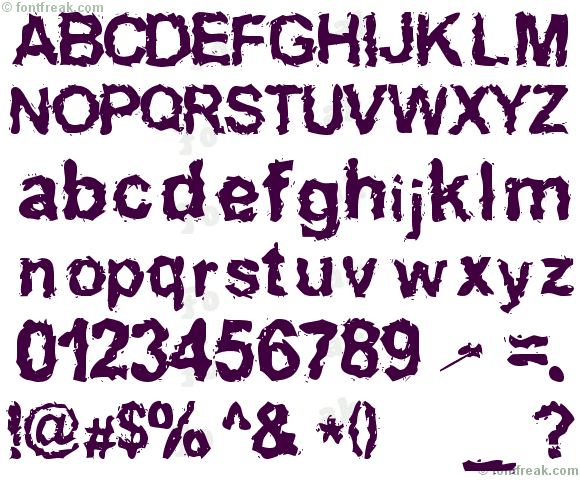
About Inked
The Inked font by Gemfonts is a distinctive display typeface that captures attention with its unique, artistic flair. Designed with a handwritten style, this font showcases a raw, almost rebellious character, making it ideal for projects seeking an unconventional touch. The strokes exhibit a varied weight, which adds depth and visual interest, while the irregular edges evoke the feel of ink on paper. This font is characterized by its playful spacing and quirky decorative elements, giving it a spontaneous and lively appearance.
Inked is well-suited for a variety of creative uses. It can enhance wedding invitations with its charming, personalized feel, adding a special touch to the big day. Additionally, it works wonderfully for movie posters, where its eye-catching design can convey the film's genre and mood effectively. Restaurant menus can also benefit from the Inked font, providing a casual yet artistic vibe that aligns with trendy dining experiences. Content creators will find this font perfect for social media graphics, as it stands out in feeds while maintaining a sense of authenticity.
The target audience for the Inked font includes graphic designers, small business owners, and content creators who seek to make a memorable impression. Whether you are crafting promotional materials, designing logos, or enhancing digital content, this font offers versatility and a unique personality.
In conclusion, the Inked font by Gemfonts stands out due to its quirky charm and artistic quality. Its freeware license makes it accessible for all, allowing anyone to incorporate this striking typeface into their projects. Don't miss the opportunity to elevate your designs with the Inked font free download, and let your creativity flourish with its distinctive character.